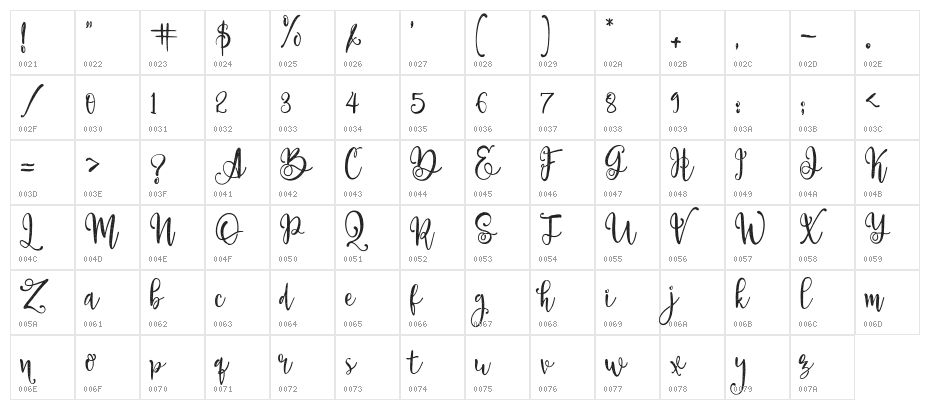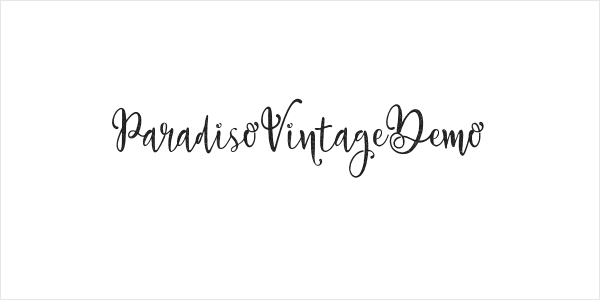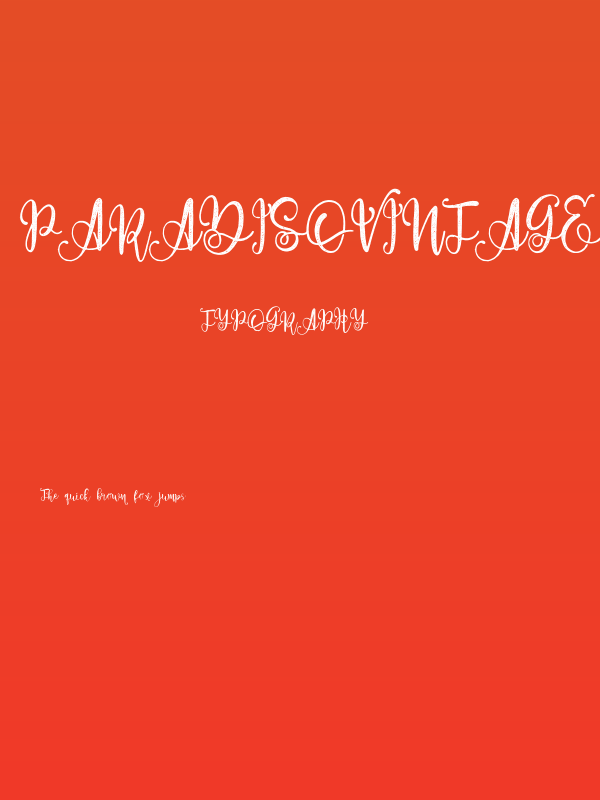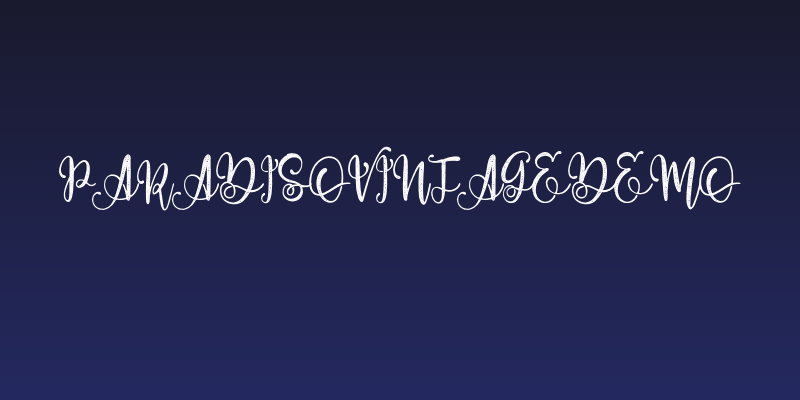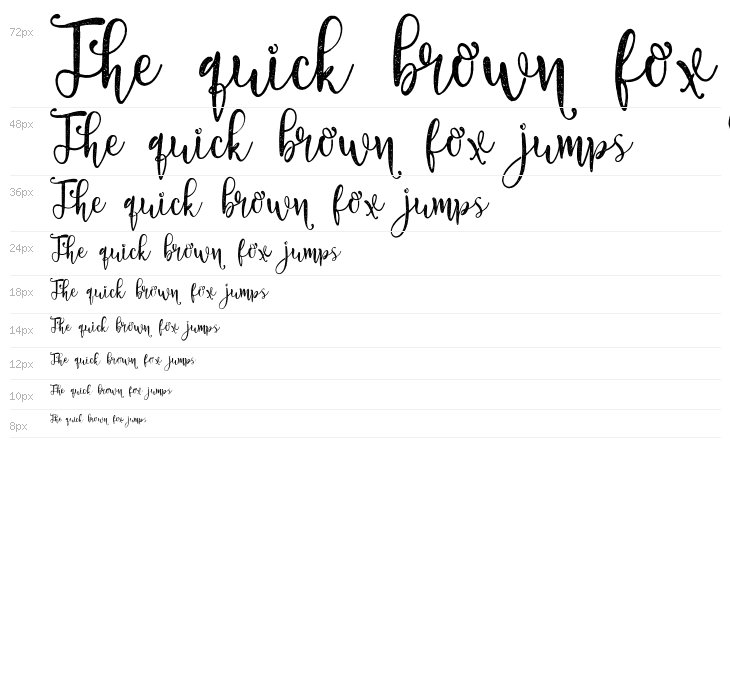
ParadisoVintageDemo Font
ParadisoVintageDemo Description
This font features a charming and whimsical script style with a vintage flair. The letters are elegantly crafted with a hand-drawn appearance, characterized by flowing curves and loops. The uppercase letters are bold and decorative, while the lowercase letters maintain a consistent style with a slightly more delicate touch. The numbers and special characters complement the overall aesthetic, making it suitable for creative and artistic projects. The textured appearance adds a unique, rustic feel, enhancing its vintage appeal.
| Proposed Projects | Ideal for wedding invitations, greeting cards, branding, and vintage-themed designs. |